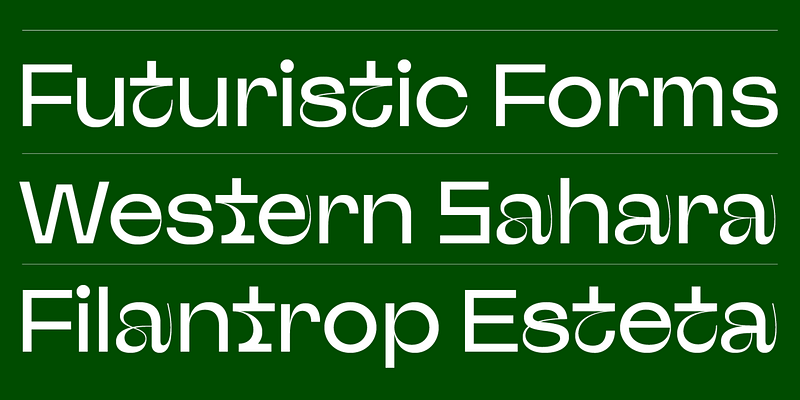
Afronaut Font Free Download
Afronaut Font Free Download is a distinctive, bold, and futuristic typeface inspired by African art and culture. Featuring geometric shapes, sharp edges, and unique letterforms, this font is perfect for projects that need to evoke a sense of strength, modernity, and cultural pride. It's ideal for use in branding, posters, logos, music, fashion, and any project where a unique, impactful look is needed.
Afronaut Font Free Download combines contemporary design with bold elements inspired by African heritage, offering an innovative and eye-catching appearance. Its clean lines and strong design make it suitable for high-contrast designs, including headlines, event promotions, and product branding.